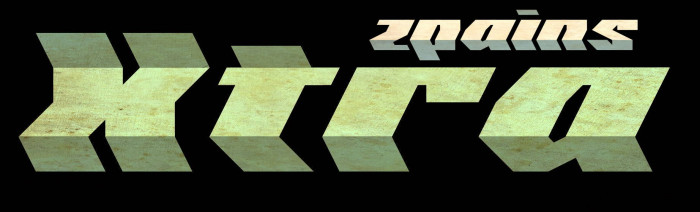
Xpanding (really!) zpains. The font can work by itself or curious effects can be achieved. The 3D aspect becomes real by adding one or two gray bands to our text as the sample show. Some alternatives (A, a, E, Y) are at the end of the Basic Latin set.
I've made version of "zpains" because I was not happy with the result of stretching and thickening the original font (sample attached) to obtain a main text for the design of a poster. The new font is much more beautiful and usable like that, don't you think?
Rocky letters, hmm... Thinking in a new 3D point of view. (And I apologize for putting me on the sample. Thanx).